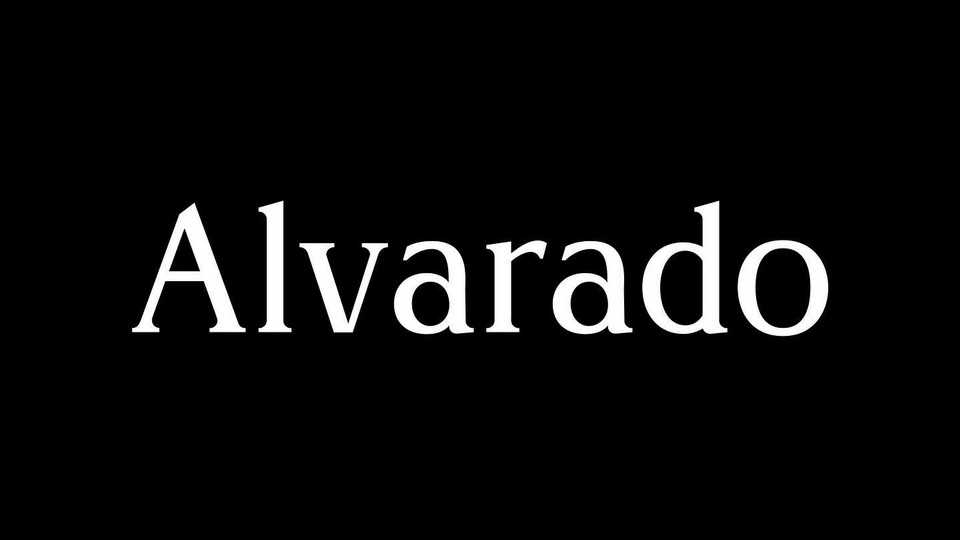
Download Alvarado font, a variable serif typeface based on vernacular signage found on the namesake street of Los Angeles. Alvarado is an elegant typeface suitable for large bodies of text.
Designer: Hector Torres